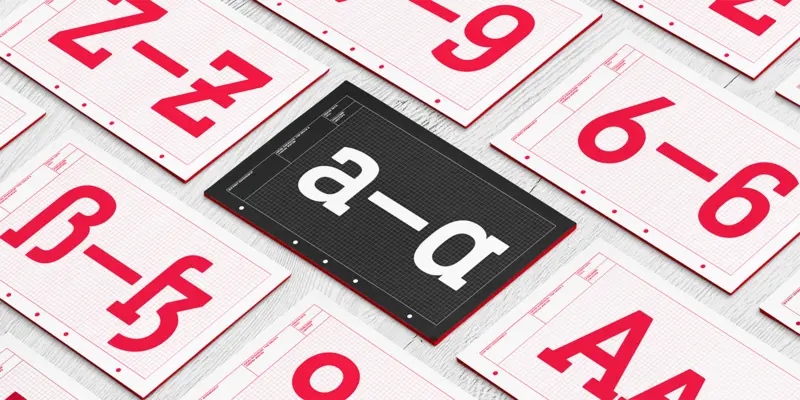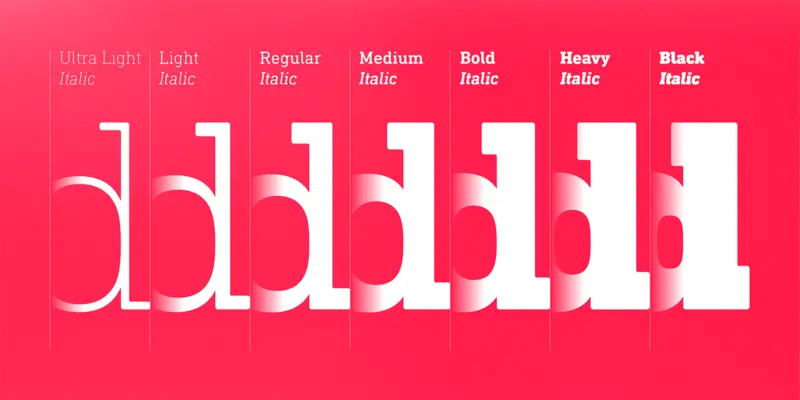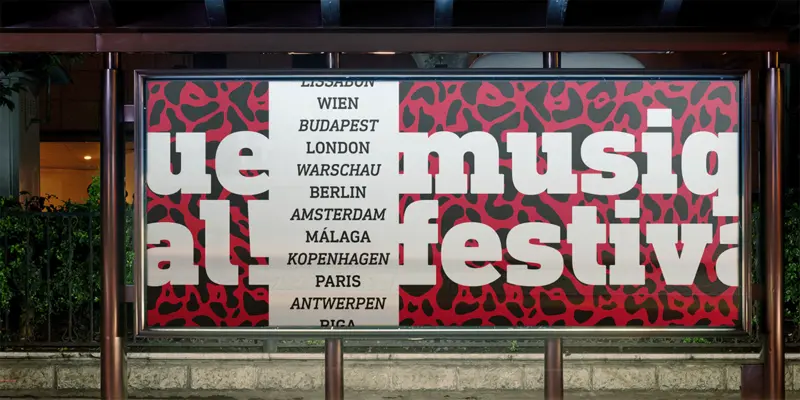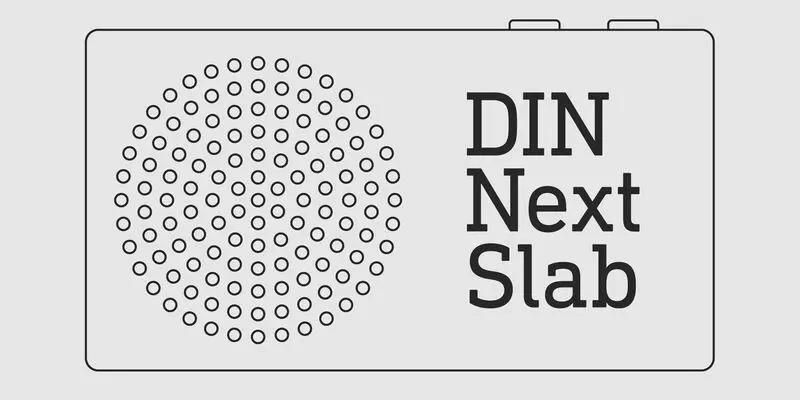
DIN Next™ Slab
A sturdy, square serif.
Like a new concrete bridge crossing the autobahn, DIN Next™ Slab brings a sturdy, square serif to the font family that has its roots in the German road sign system. With 14 new fonts, all inspired by the classic German DIN 1451 typefaces, its industrial heritage makes it surprisingly versatile for a wide range of design applications.
Now even more design possibilities with the popular DIN Next. With its technical and neutral character, DIN Next has earned a permanent place in contemporary typography. Now, DIN Next Slab expands the font family further, offering new design potential.
Now comes the next step, DIN Next Slab, also produced under the direction of Akira Kobayashi. On a team with Sandra Winter and Tom Grace, Kobayashi is creating the new font variant based on the optimized shapes of DIN Next. The expansion will make the popular font all the more flexible and versatile. Apart from that, the geometric slab serifs underline the technical and formal nature of the font and emphasize a central design element of DIN Next.
However, the team did have some challenges to overcome. While it is relatively easy to imagine DIN Next Light with slab serifs, the amount of available space quickly disappears when it comes to the Black styles. Winter explains that many tests and trials were necessary to find a compromise between space, letters and the serif shapes. Experiments with modified contrast in the weight or only one-sided serifs were quickly abandoned. The central, technical and powerful character of the font changed too much. Nevertheless, it was necessary to simplify slightly the shape of some letters, such as the ‘k’ or ‘x’, for example. These changes, first developed in the Black styles, were applied to all weights in order to lend the font a consistent appearance.
Creative Type Director Akira Kobayashi has three decades of experience, with an extensive background in Japanese typeface design and a deep understanding of calligraphy. After studying at Musashino Art University in Tokyo for four years, Akira Kobayashi accepted his first job at phototypesetting manufacturer Sha-Ken Co., where he was involved in the lengthy and intricate process of designing Japanese fonts.